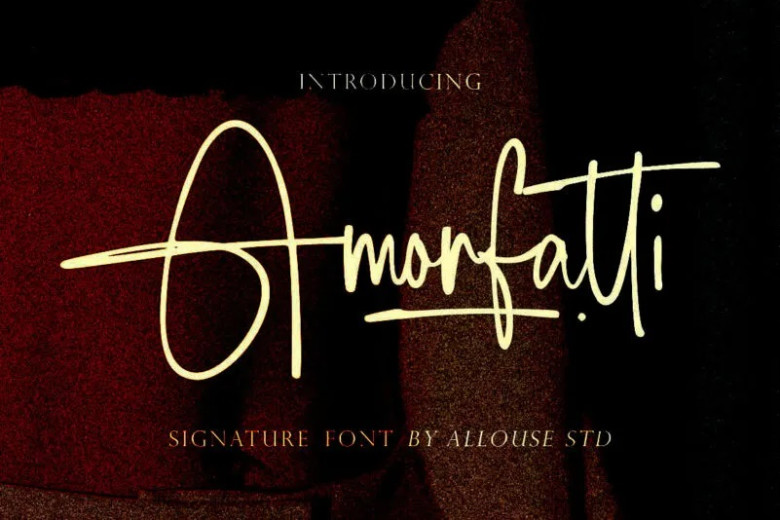
Amorfatti Font
Amorfatti font is an elegant signature typeface perfect for titles, logos, packaging designs, branding projects, megazines, social media posts or wedding invites – or simply adding text over an image background. Amorfatti comes complete with Multi-Lingual support!